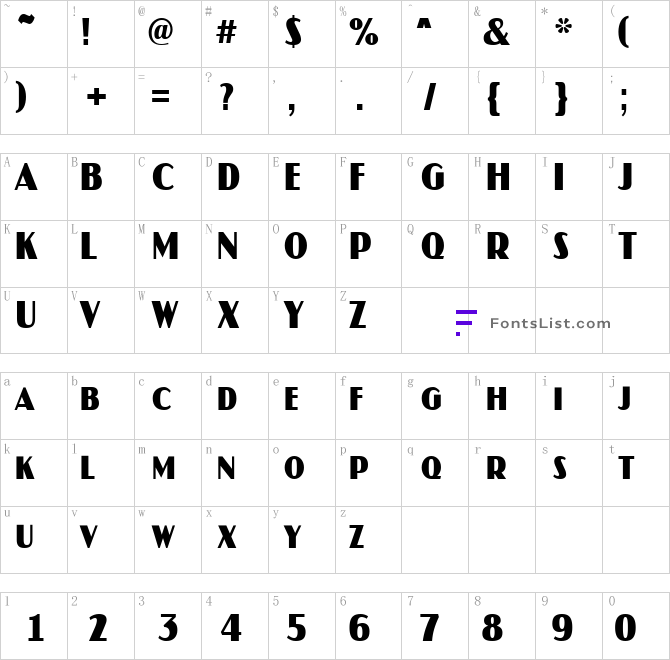
- Font Name:a_JasperCapsNr
a_JasperCapsNr-Bold.ttf is a very beautiful artistic font, a_JasperCapsNr-Bold.ttf is widely used in the design and printing of various books and pictures,a_JasperCapsNr-Bold.ttf has a strong visual impact,a_JasperCapsNr-Bold.ttf is a commonly used font in newspapers, magazines and books, and is used in posters, e-commerce Poster design, store design, logo design, font design and other fields.a_JasperCapsNr-Bold.